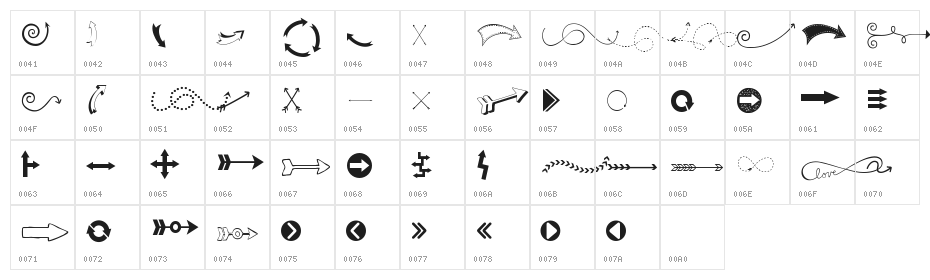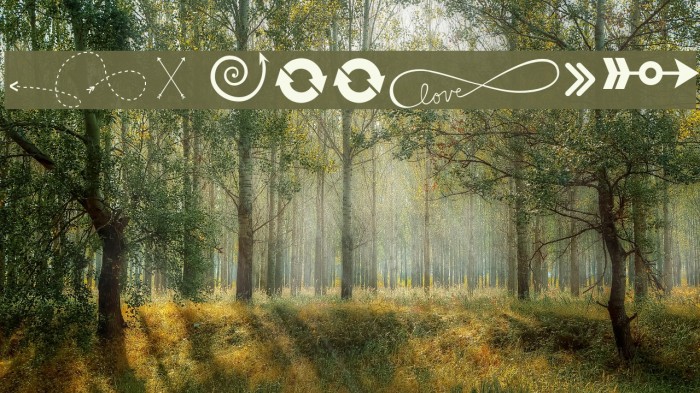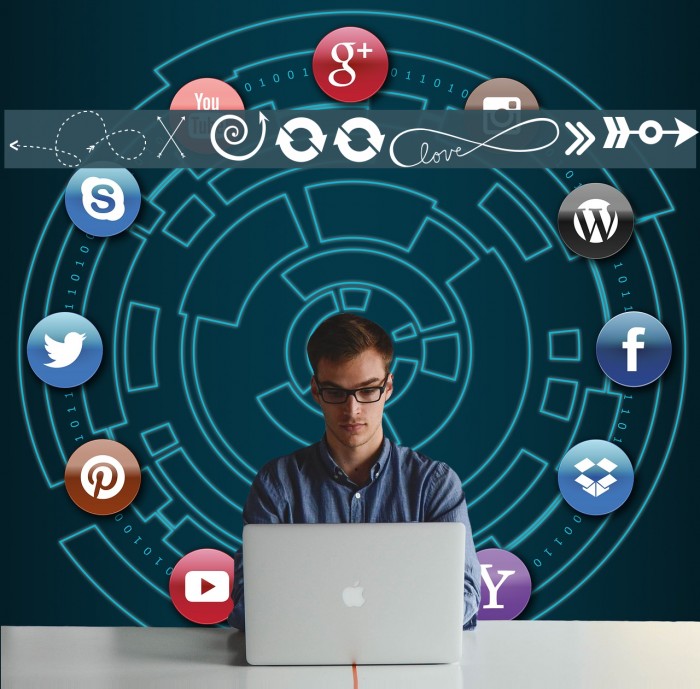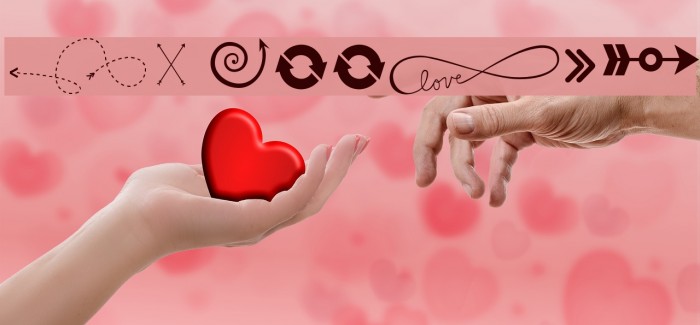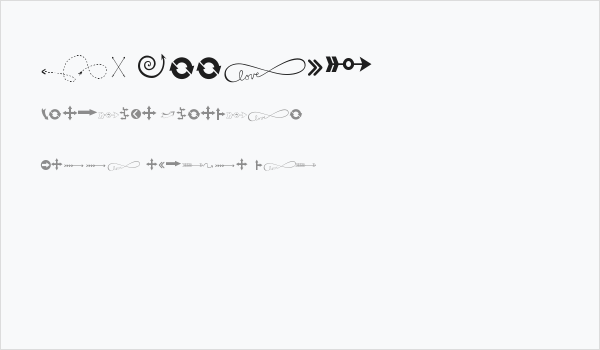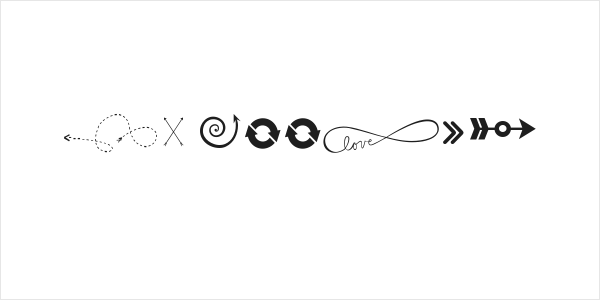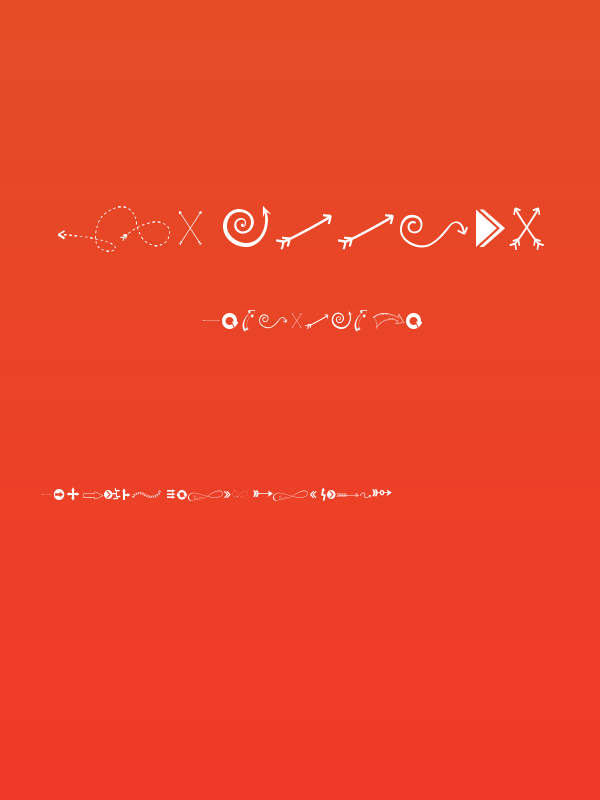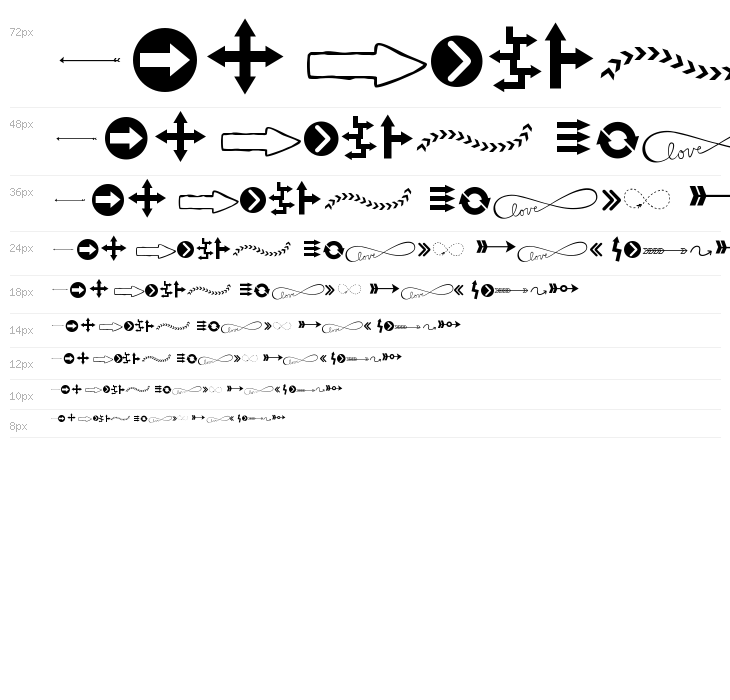
KG Arrows Font
KG Arrows Description
This collection features a diverse array of arrow designs, ranging from simple and straightforward to intricate and decorative. The arrows vary in style, including dotted lines, swirling curves, and bold geometric shapes. Some arrows incorporate additional elements like hearts or loops, adding a playful or elegant touch. The designs are versatile, suitable for both modern and vintage-themed projects. The variety in thickness and style allows for creative flexibility, making these arrows ideal for enhancing visual interest in graphic design projects.
| Use Case | Logos, Decorative elements, Presentations |
| Proposed Projects | Ideal for graphic design projects, presentations, scrapbooking, and digital art where directional emphasis or decorative elements are needed. |